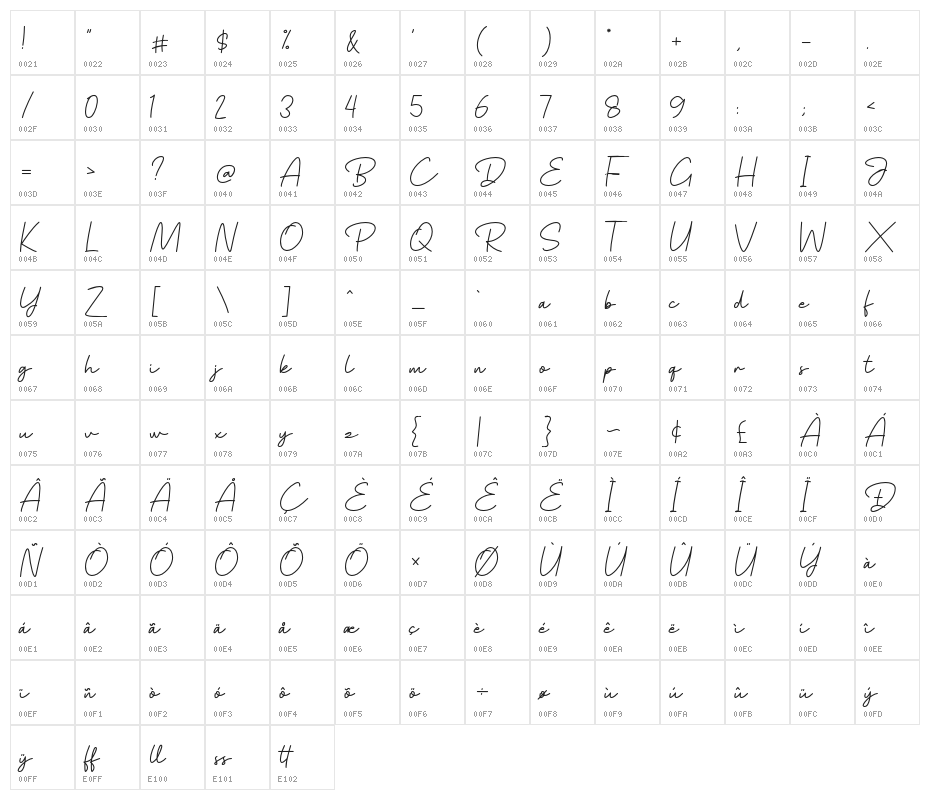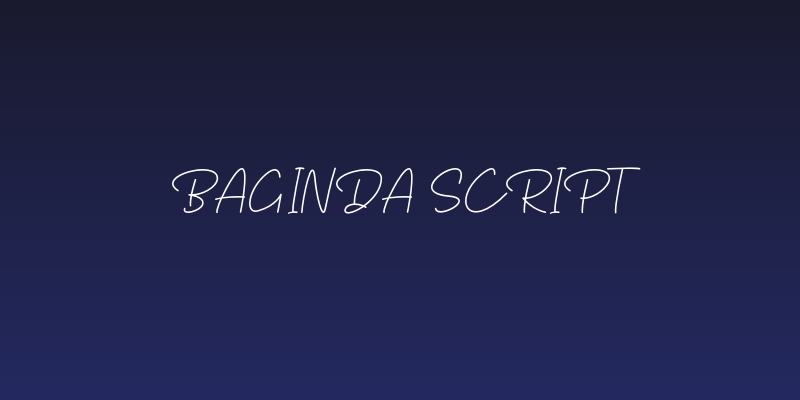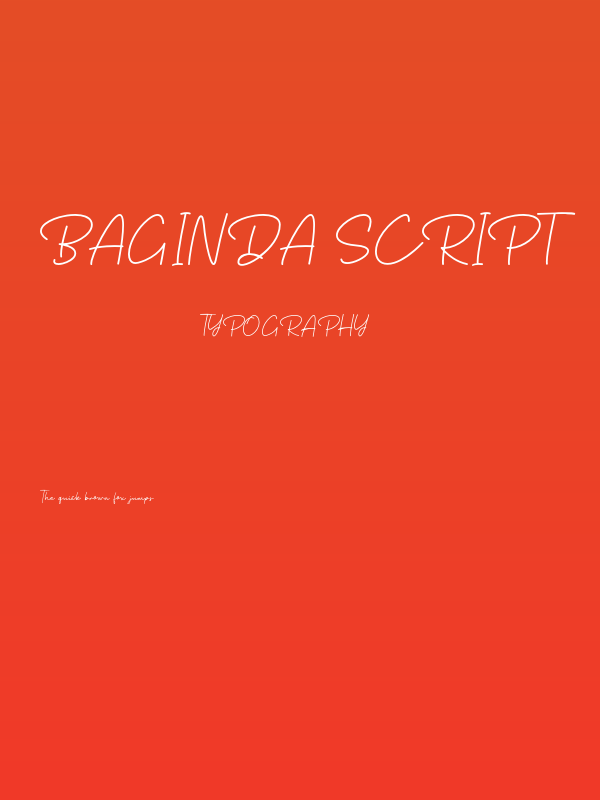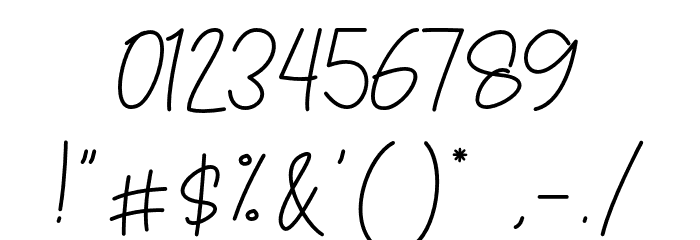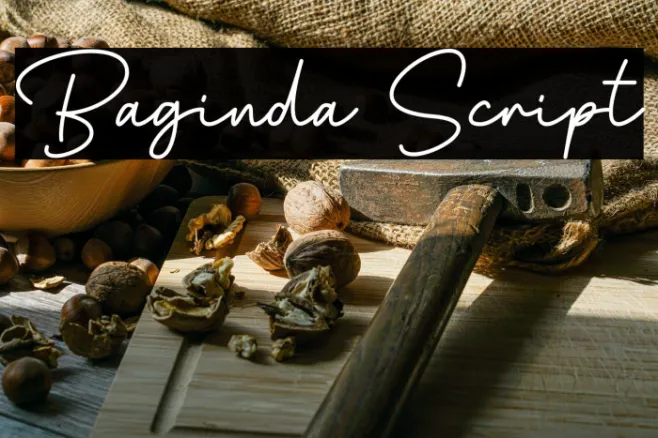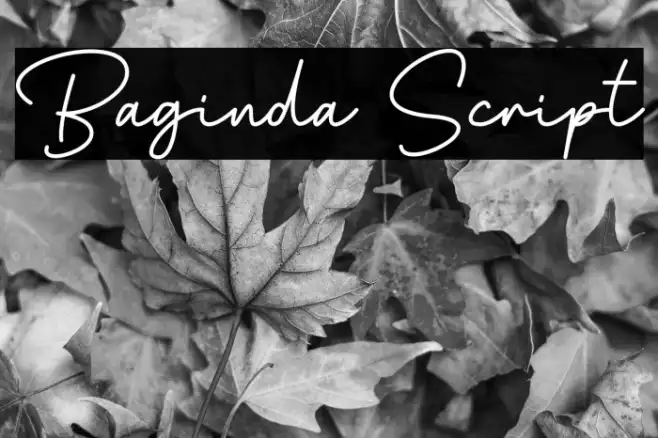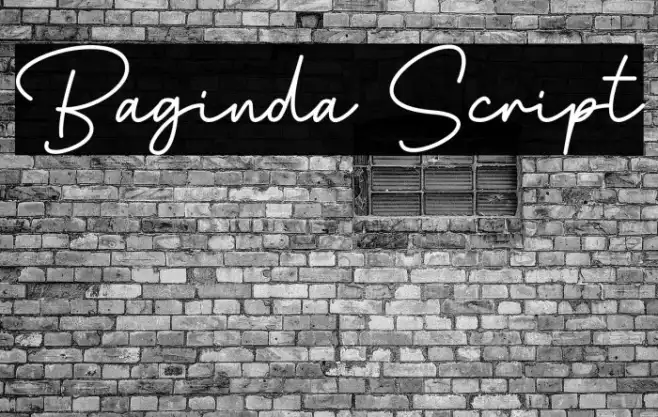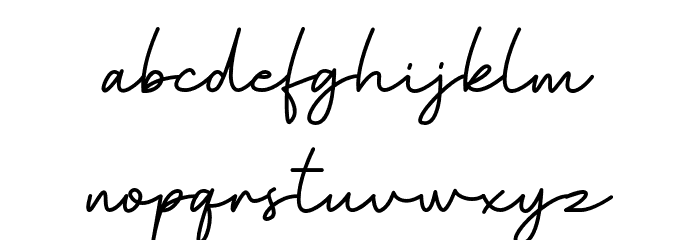
Baginda Script Font
Baginda Script Description
This elegant script font features fluid, connected strokes that mimic the natural flow of handwriting. The uppercase letters are tall and slightly slanted, with a graceful, airy presence. The lowercase letters maintain a consistent flow, enhancing readability while retaining a personal touch. Numbers and special characters are crafted with the same attention to detail, ensuring a cohesive look across all text. The font's overall appearance is sophisticated yet approachable, making it suitable for a variety of design applications.
| Proposed Projects | Ideal for wedding invitations, greeting cards, branding projects, and elegant packaging designs. |